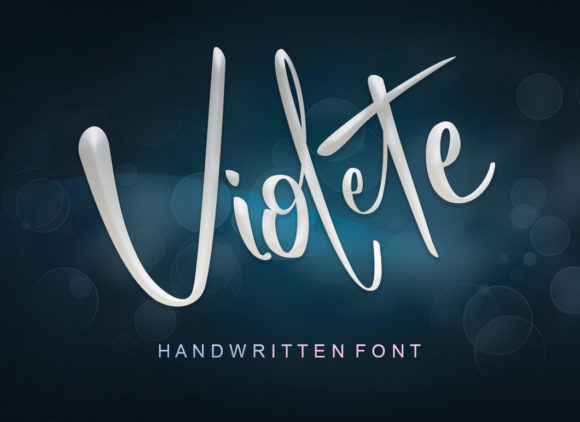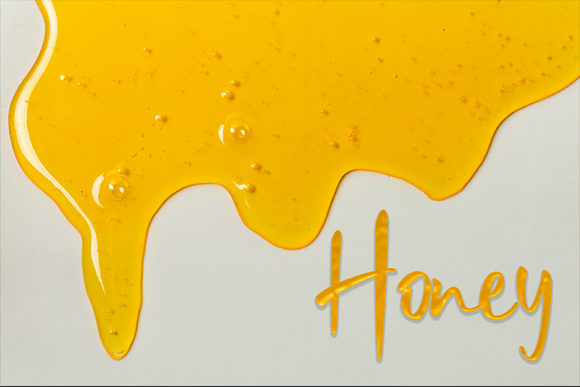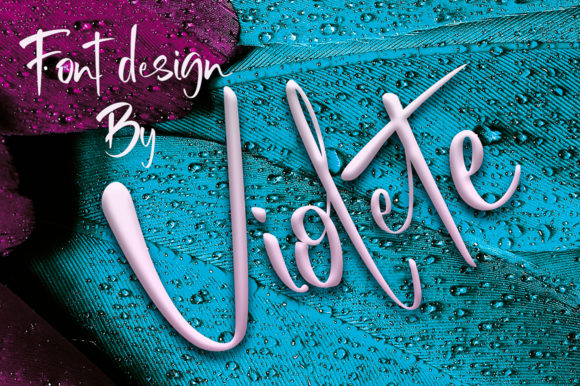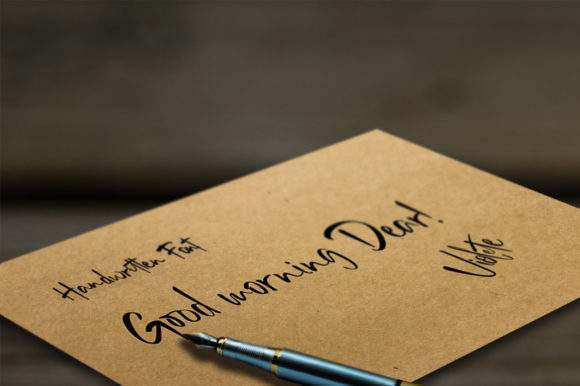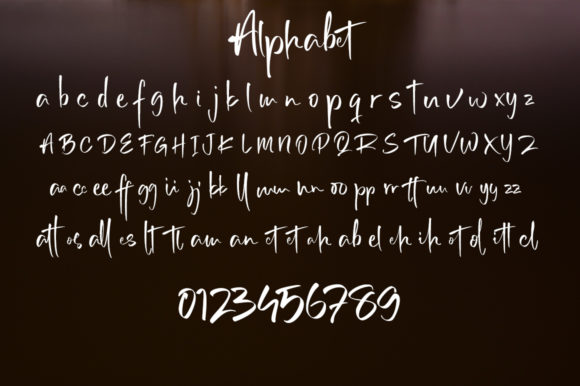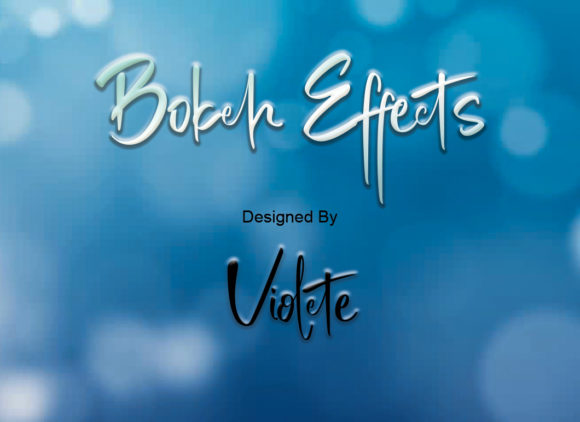
HomeScript FontsViolete Font Script Fonts Violete Font FacebookXPinterestWhatsApp Violete Font Poster 2 Violete Font Poster 3 Violete Font Poster 4 Violete Font Poster 5 Violete Font Poster 6 About Violete Font Violete is a modern & calm script font with unique character. Great for a variety of creative projects! DOWNLOAD ON CREATIVE FABRICAThis font is sold and delivered by Creative Fabrica. Font Canyon may earn a commission if you buy through this link. People also explored Gadigoke Haola Font Bastrid Script Font Menittaya Font Wilgaty Font Midnight Font BD Supper Font Alyza Font Anthanista Font Whilling Font 352 0 TagsViolete Font Previous articleJuliana Kasman FontNext articleMaster & Margarita Font LEAVE A REPLY Cancel reply Comment: Please enter your comment! Name:* Please enter your name here Email:* You have entered an incorrect email address! Please enter your email address here Website: Save my name, email, and website in this browser for the next time I comment. Personal Use Free Heartburn Personal Use Free Read more about this font Sunshine Tropical Font Personal Use Free Read more about this font Carrolina Personal Use Free Read more about this font Mama Personal Use Free Read more about this font BLOG How to Install and Use Fonts on Windows, macOS, and Web Projects How to Install and Use Fonts on Windows, macOS, and Web Projects Fonts are a crucial part of design and branding. Whether you’re designing a... Free vs Paid Fonts: Why Investing in Premium Fonts Is Worth It The 10 Best Handwriting Fonts to Add Personality to Your Designs Top 7 Google Fonts Alternatives for Faster and Privacy-Friendly Web Design (2025)